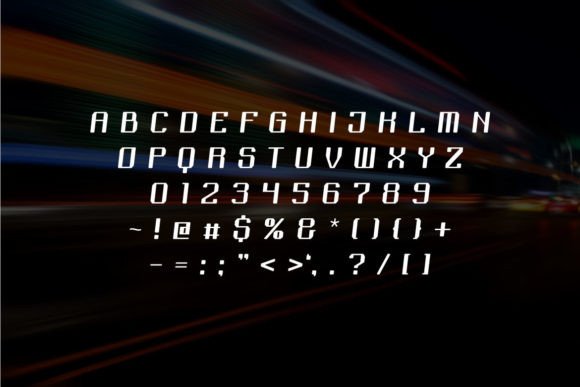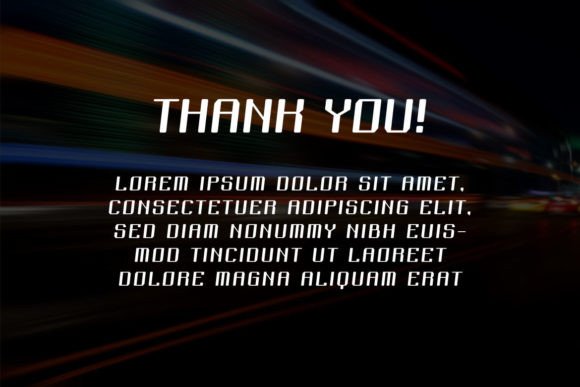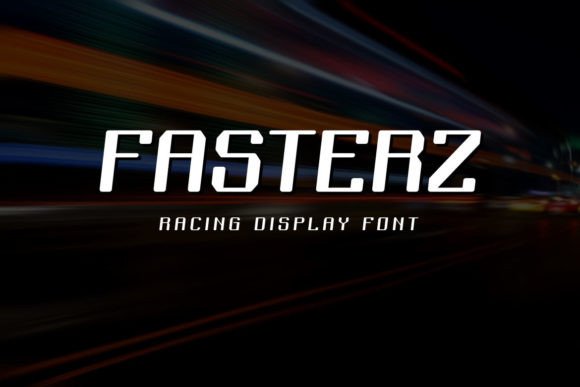
Fasterz Font: Elevate Your Designs with a Modern and Futuristic Display Font
In the world of design, typography plays a crucial role in conveying messages, expressing creativity, and capturing attention. When it comes to display fonts, designers are constantly on the lookout for fresh and innovative options that can elevate their creations. This is where Fasterz Font comes in – a modern and futuristic display font that is poised to revolutionize your font library.
The Power of Fasterz Font
Fasterz Font is a game-changer for designers and crafters alike. Its sleek and futuristic design makes it an ideal choice for a wide range of projects, from branding and advertising to packaging and digital media. With Fasterz, you can add a touch of sophistication and style to your designs, making them stand out in a crowded market.
No matter the topic or theme, Fasterz Font is an incredible asset to your font library. Its versatility and adaptability make it perfect for various design applications, including:
- Branding and Logo Design: Create stunning logos and brand identities with Fasterz Font’s unique and memorable design.
- Advertising and Marketing: Use Fasterz Font to create eye-catching headlines, slogans, and taglines that grab attention and leave a lasting impression.
- Packaging Design: Add a touch of modernity and sophistication to your packaging designs with Fasterz Font’s sleek and futuristic aesthetic.
- Digital Media: Use Fasterz Font to create engaging and interactive digital content, such as social media graphics, website headers, and video titles.
Key Features of Fasterz Font
Fasterz Font boasts a range of impressive features that make it an attractive addition to your font library. Some of its key features include:
- Modern and Futuristic Design: Fasterz Font features a sleek and futuristic design that is perfect for modern designs.
- High-Quality Vector Graphics: Fasterz Font is built with high-quality vector graphics, ensuring crisp and clean lines at any size.
- Easy to Read: Despite its futuristic design, Fasterz Font is easy to read, making it perfect for body text and headlines.
- Wide Range of Applications: Fasterz Font is suitable for a wide range of design applications, from print to digital media.
Why Choose Fasterz Font?
With so many display fonts available, why choose Fasterz Font? Here are just a few reasons why Fasterz Font stands out from the crowd:
- Unique and Memorable Design: Fasterz Font features a unique and memorable design that will help your creations stand out.
- Versatility and Adaptability: Fasterz Font is suitable for a wide range of design applications, making it a valuable addition to your font library.
- High-Quality and Professional: Fasterz Font is built with high-quality vector graphics, ensuring a professional finish in every design.
In conclusion, Fasterz Font is a modern and futuristic display font that is poised to revolutionize your font library. With its sleek and futuristic design, versatility, and high-quality vector graphics, Fasterz Font is an incredible asset to any designer or crafter. Whether you’re working on branding, advertising, packaging, or digital media, Fasterz Font is the perfect choice to elevate your creations and make them stand out in a crowded market.